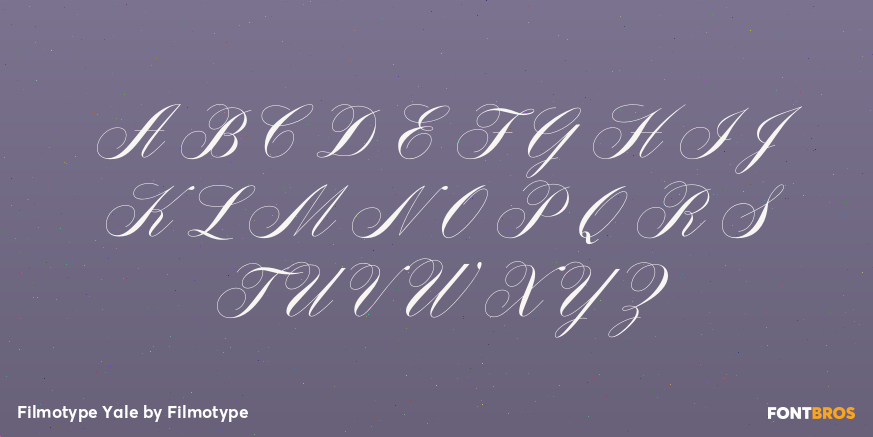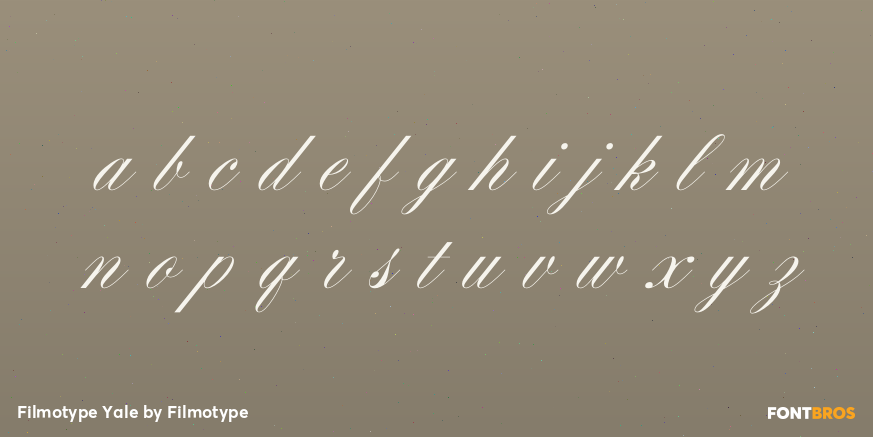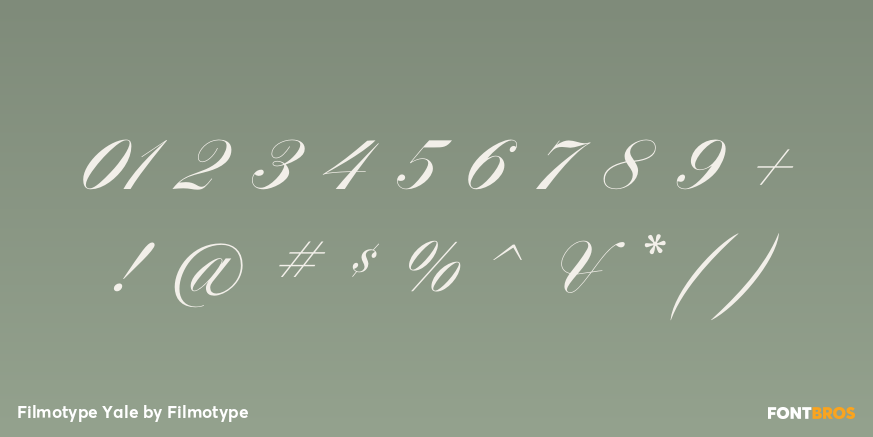
Filmotype Yale
Font Family by Filmotype
Originally released in the mid 1960s, Filmotype expanded its Formal Script category with Filmotype Yale. This elegant script is a natural for wedding invitations and formal occasions while offering a more delicate and slightly wider take on classic formal script forms.
Filmotype Yale was developed from the original font filmstrips and includes a full international character compliment, automatic fractionals, ordinals, and a very large set of alternate contextual and ending characters and ligatures to allow flawless typesetting in dynamic OpenType format.